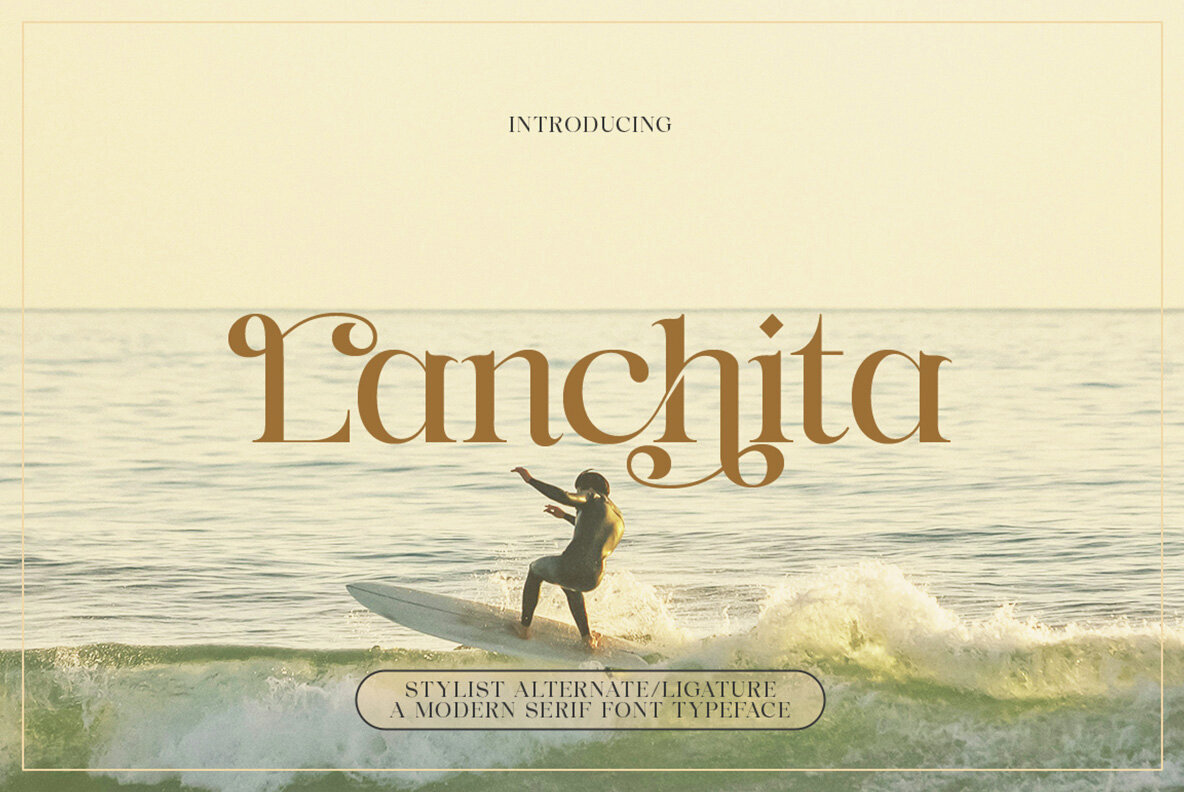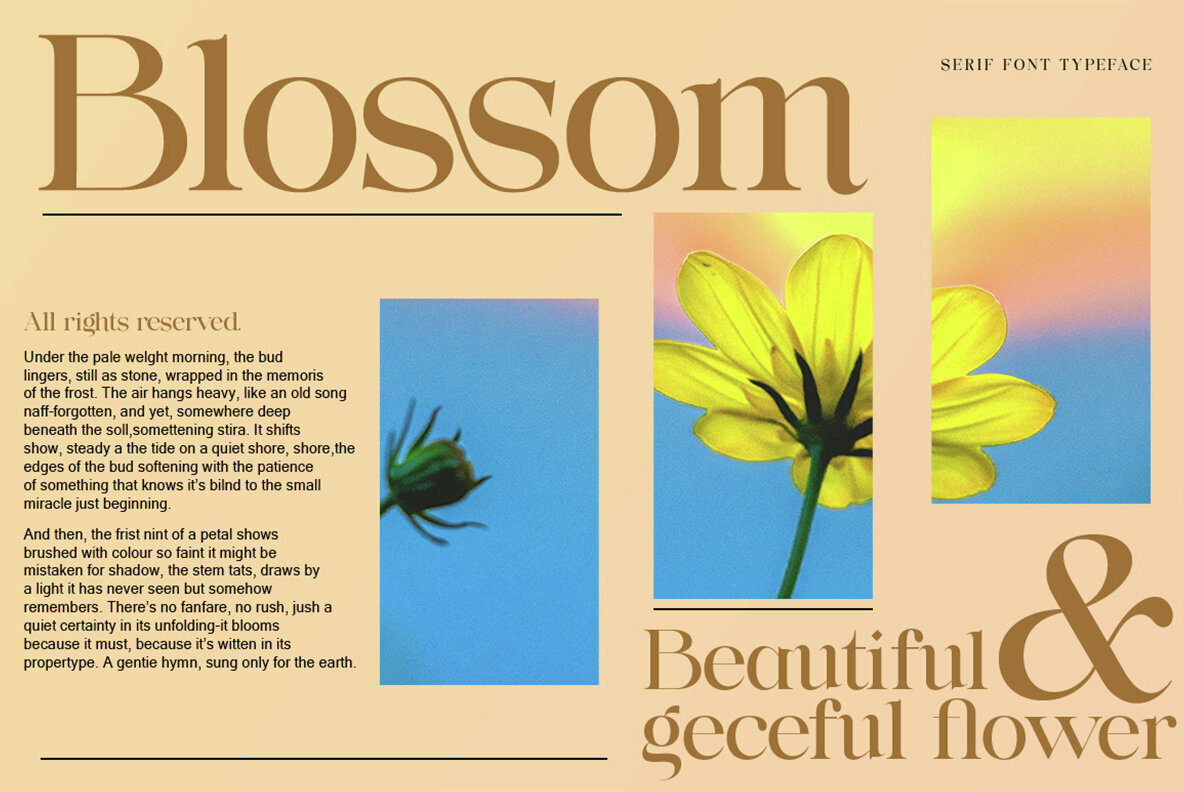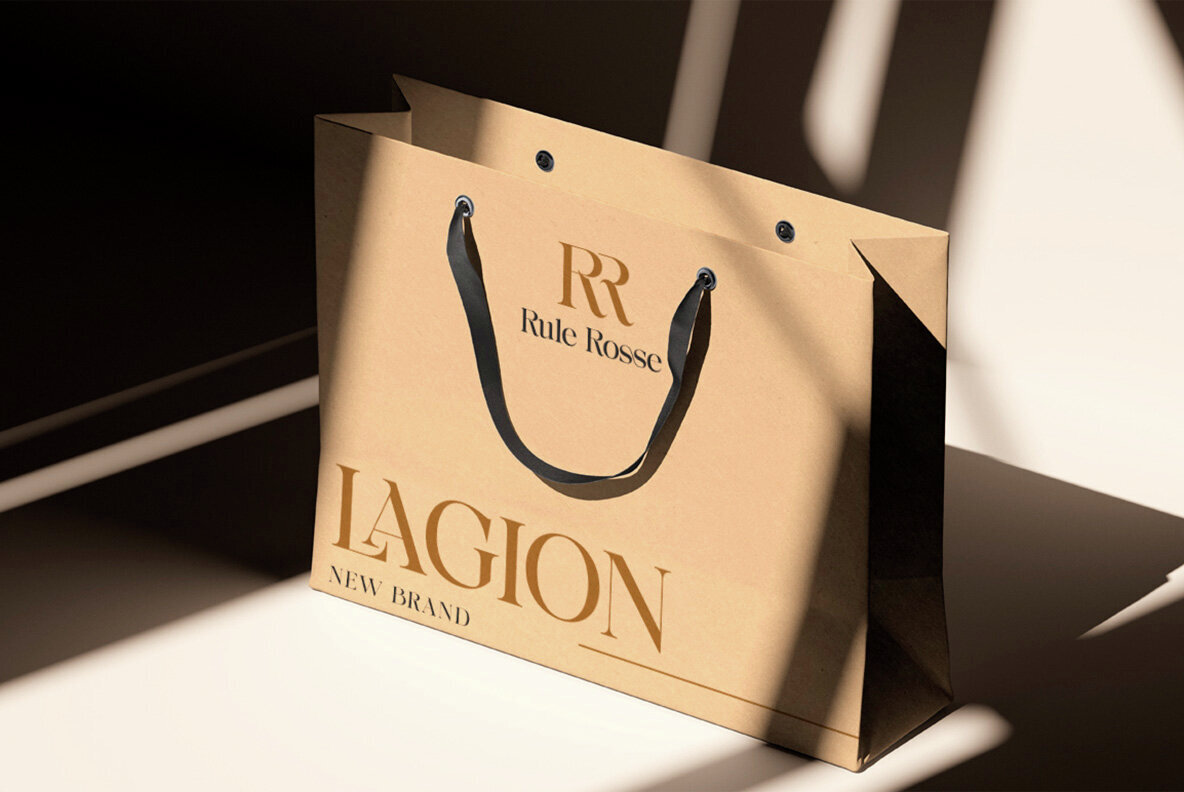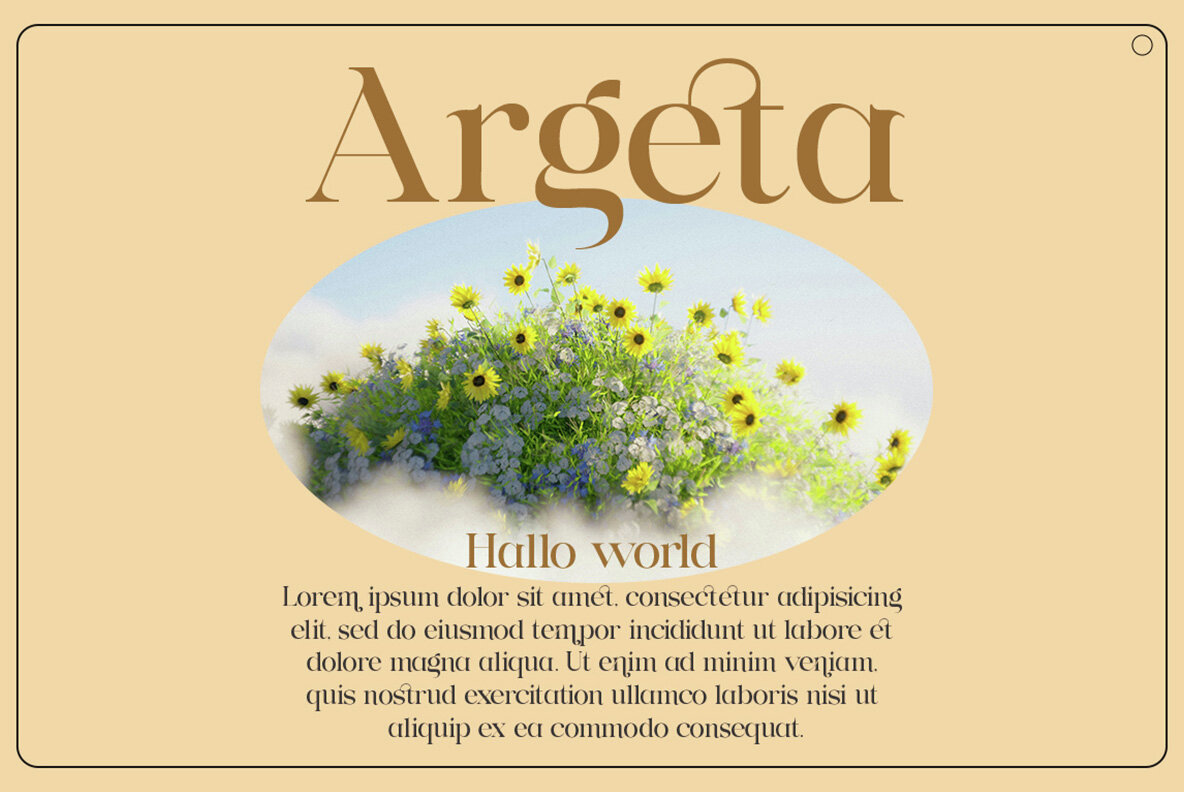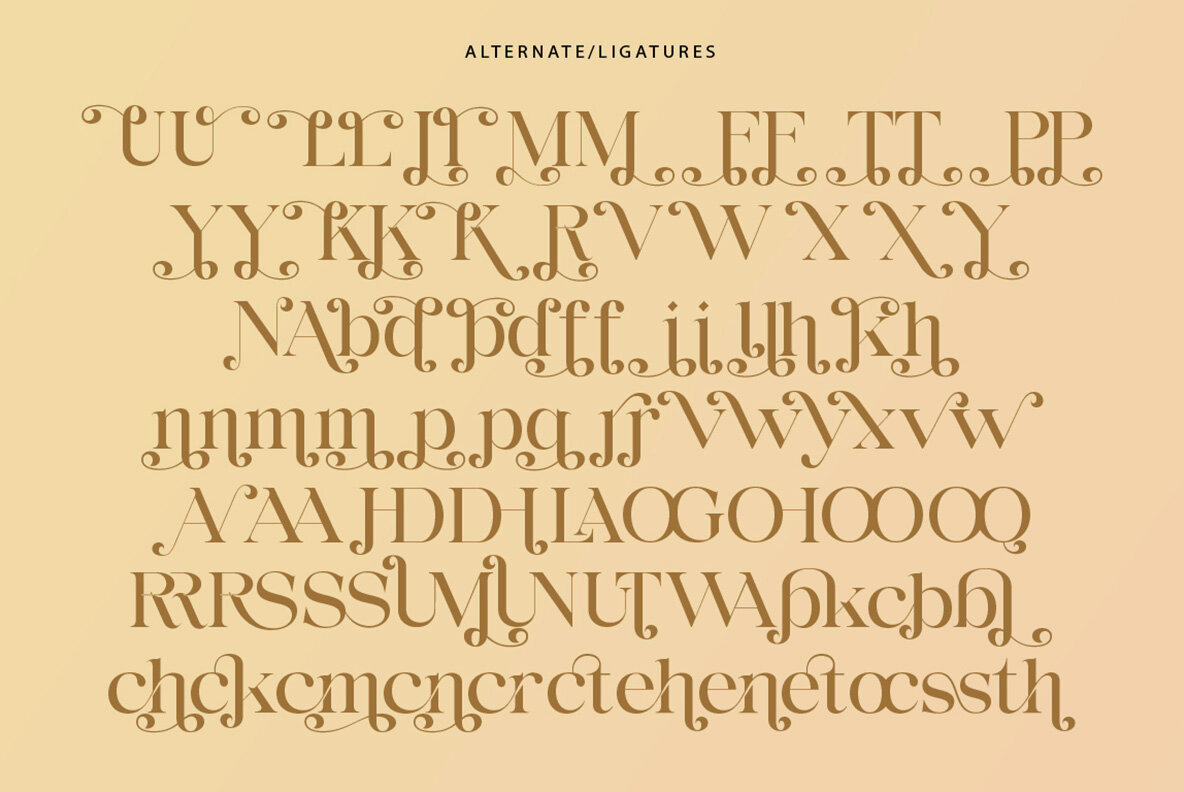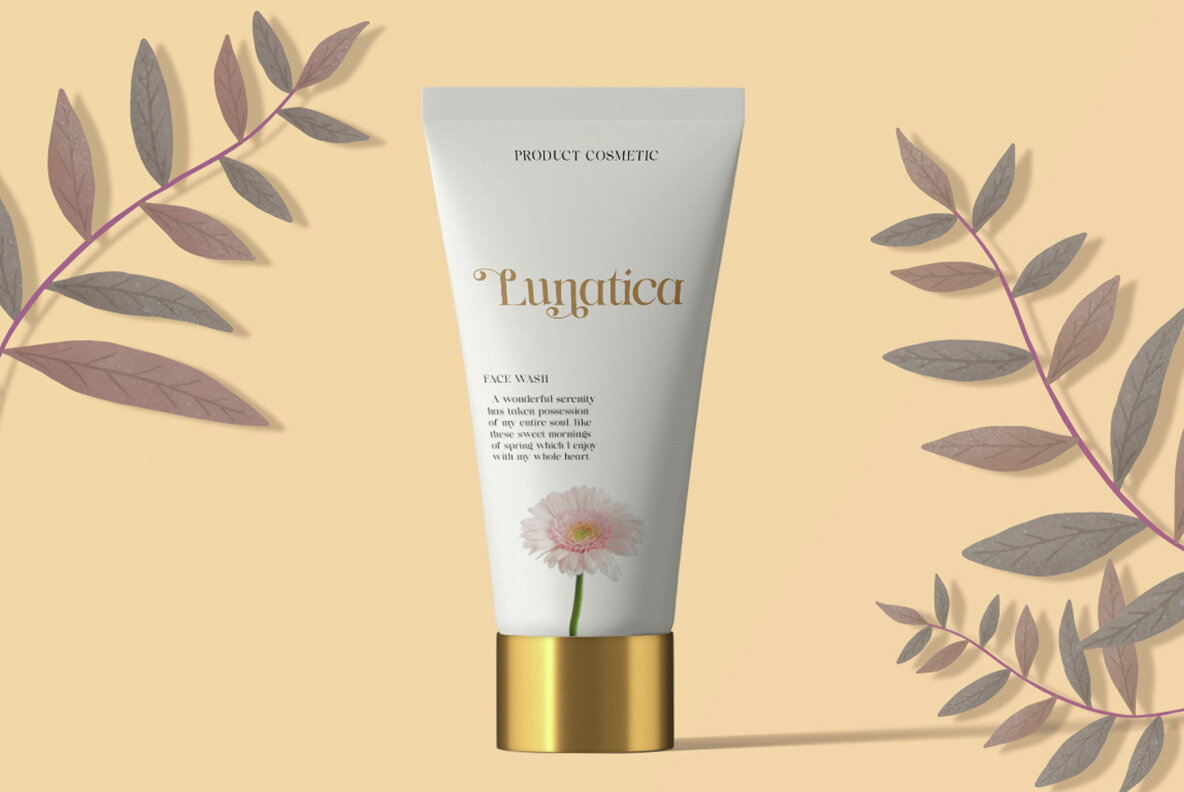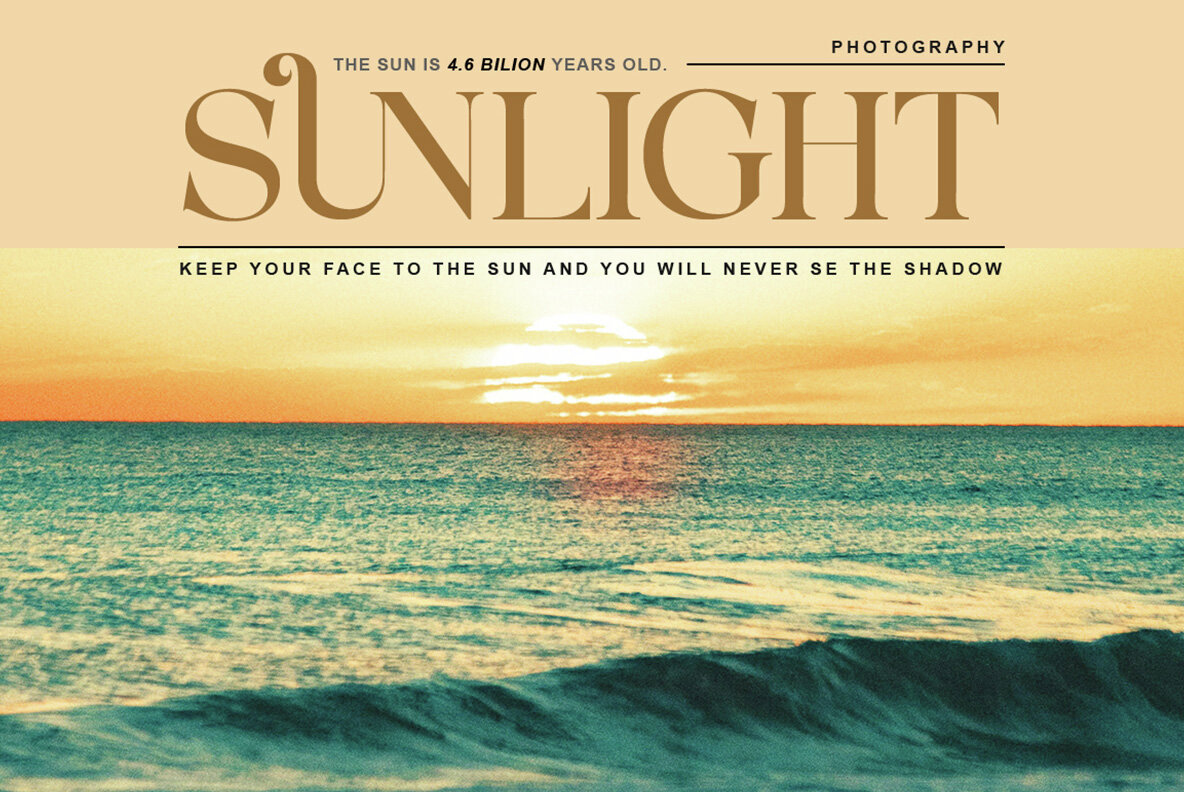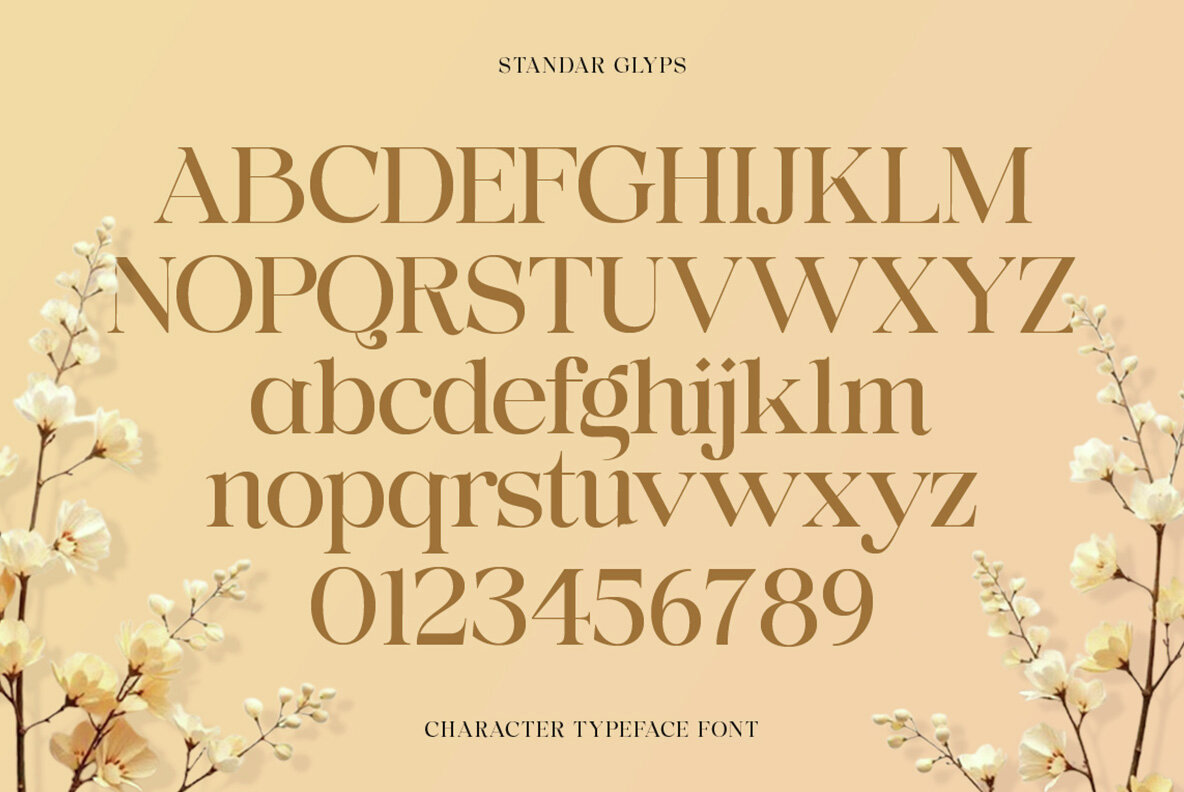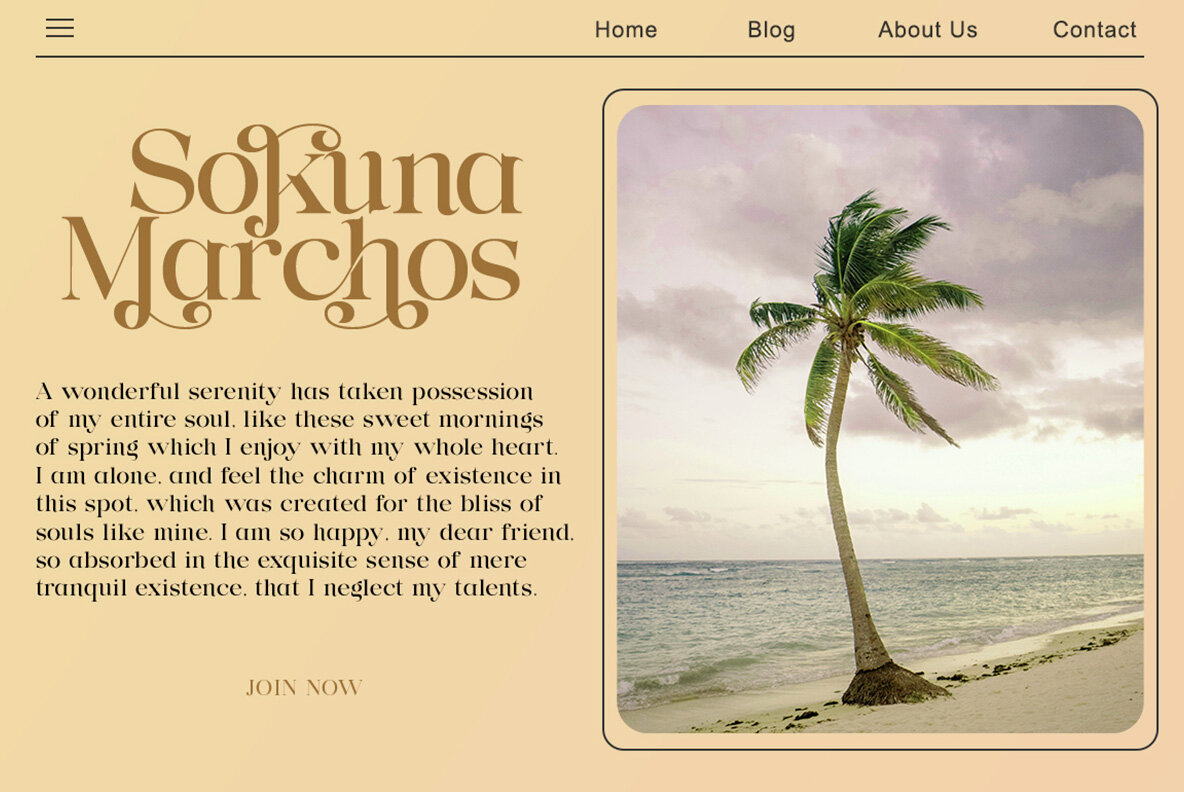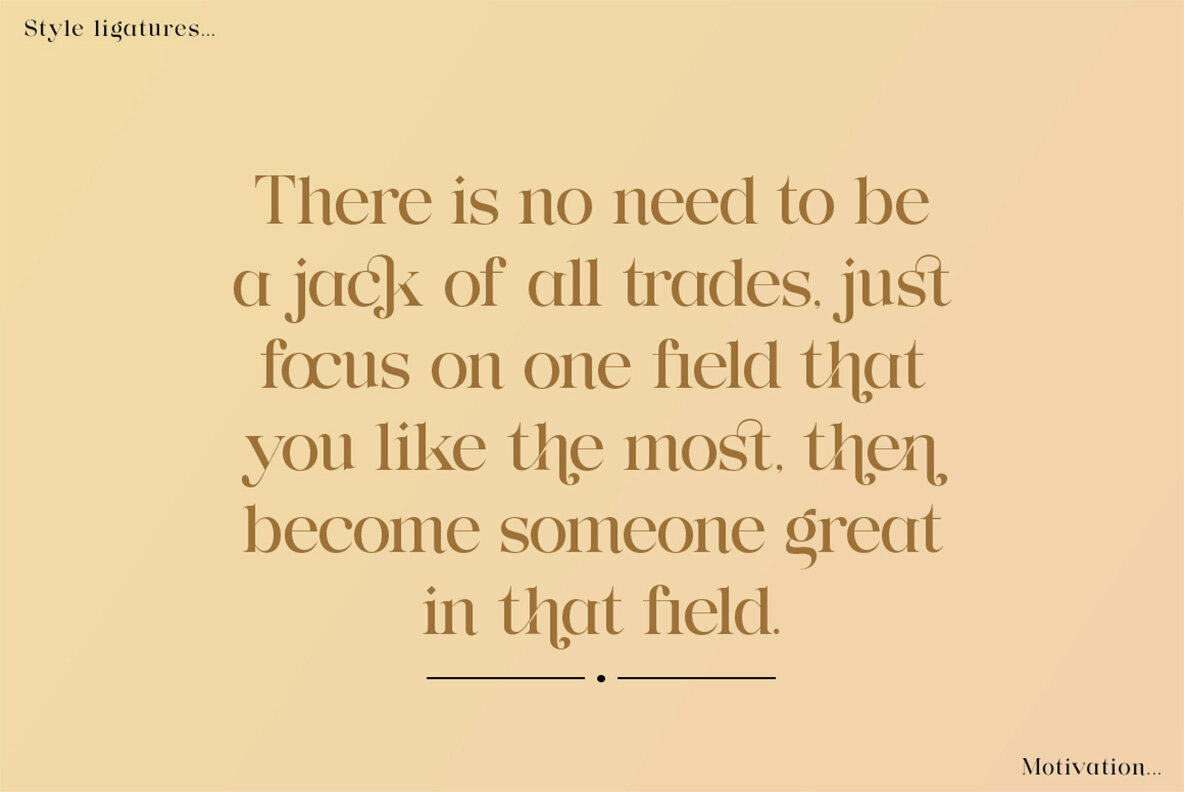
Lanchita Font
Lanchita Regular
Lanchita is a serif font family that embodies classic elegance with a modern twist. Renowned for its luxurious and glamorous appearance, it is an ideal choice for a wide array of design projects, including wedding invitations, logos, and branding endeavors. Whether you seek to convey a sense of sophistication or enhance your brand's visual identity, Lanchita offers a truly timeless look that seamlessly adapts to various uses.Lanchita: A Timeless Elegance
Versatile and Multilingual